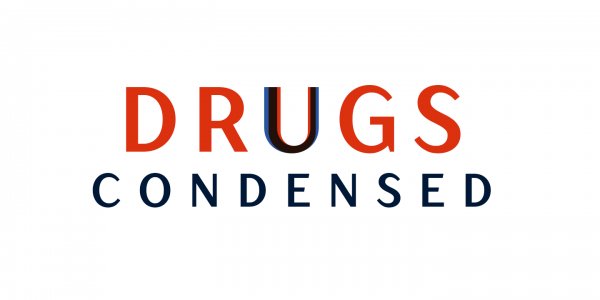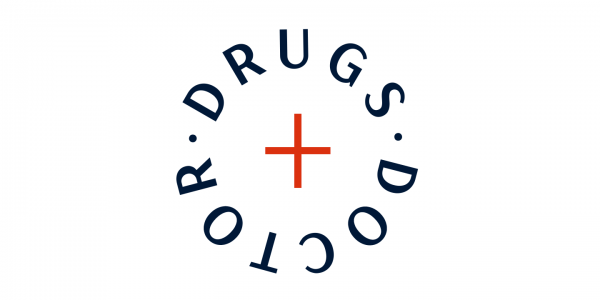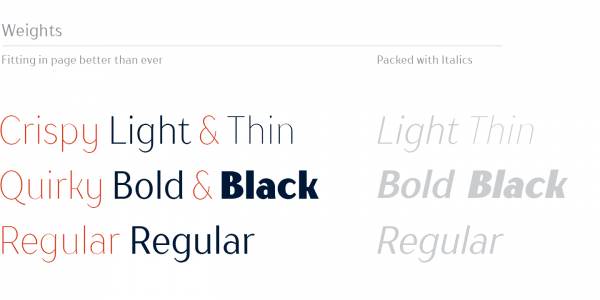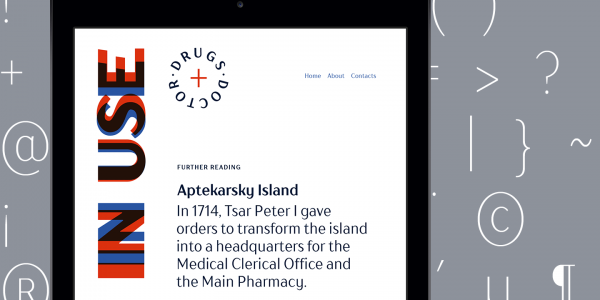
TT Drugs Condensed, a modern and elegant font family designed by Ivan Gladkikh of foundry TypeType.
Ivan Gladkikh’s TT Drugs Condensed typeface is the new narrow version of the popular Drugs type family. It’s approximately 18% more narrow than the basic style. TT Drugs Condensed is a family that consists of 5 weights (light, regular, bold, black) plus perfectly fitting Italic versions for each weight. This sans serif typeface offers a modern and very elegant look caused by a special contrast of lines and stems. The name suggests that the font can be used for the pharmaceutical industry, but TT Drugs Condensed is also a great fit for any kind of printed matters or websites. You can download this type family as both desktop font and webfont, just follow the link below.